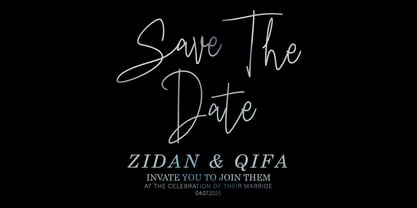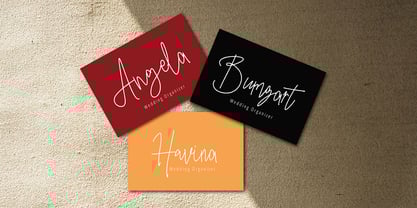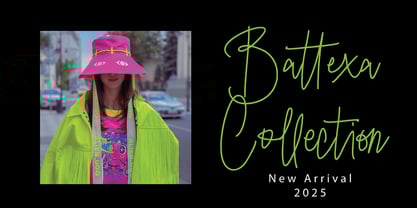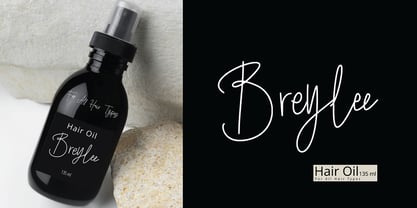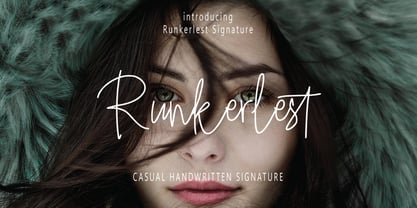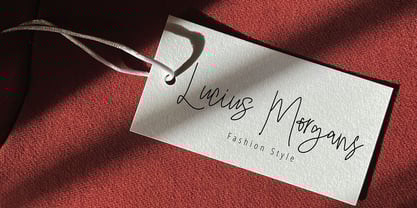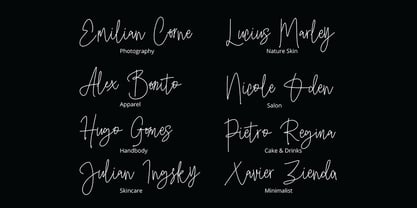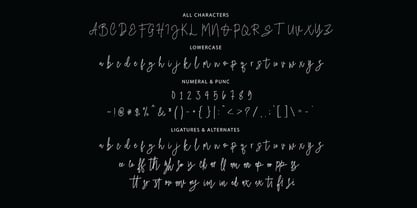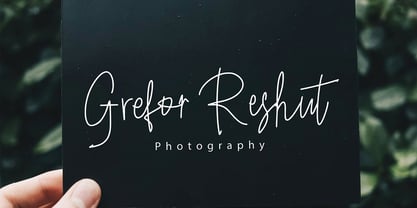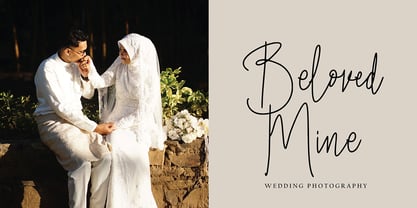
Runkerlest Signature
The Runkerlest Signature Font Family was designed by Ferdiansyah and published by Pointlab. Runkerlest Signature contains 1 styles.
Runkerlest Signature with a handmade Signature style, decorative characters and a dancing baseline!
Runkerlest Signature with 130+ glyphs. The alternative characters were divided into several Open Type features such as Swash, Stylistic Sets, Stylistic Alternates, and Ligature. The Open Type features can be accessed by using Open Type savvy programs such as Adobe Illustrator, Adobe InDesign, Adobe Photoshop Corel Draw X version, And Microsoft Word. And this Font has given PUA unicode (specially coded fonts). so that all the alternate characters can easily be accessed in full by a craftsman or designer.